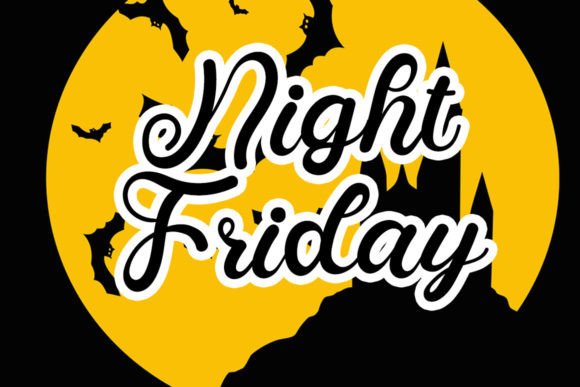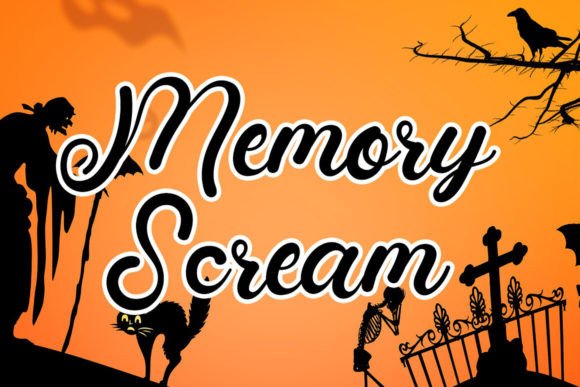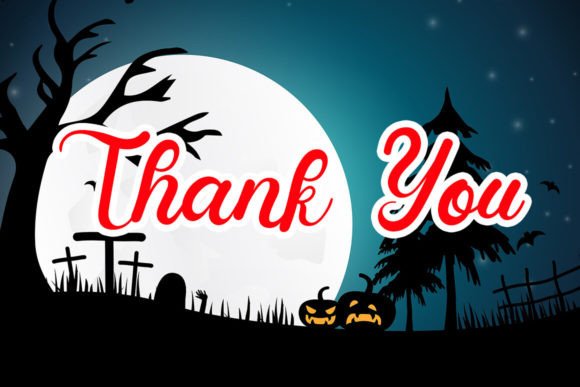
Better Halloween Font: Elevate Your Designs with Elegance and Whimsy
As the spookiest time of the year approaches, designers and crafters are on the lookout for the perfect font to add a touch of magic to their Halloween-themed projects. Look no further than the stunningly elegant Better Halloween font. This beautiful font is designed to bring a sense of freshness and purity to your designs, making it ideal for a diverse array of applications.
The Essence of Better Halloween Font
The Better Halloween font is a masterclass in sophistication. Its clean lines, precise curves, and balanced proportions make it a joy to behold. The font’s elegance is reminiscent of a morning breeze on a crisp autumn day, bringing a sense of refreshment and renewal to your designs. Whether you’re working on a formal or casual project, Better Halloween fluidly adapts to your needs, ensuring that your designs exude a sense of refinement and poise.
Adding a Spark of Joy to Your Designs
One of the standout features of the Better Halloween font is its ability to infuse jovial vibes into your designs. The font’s playful undertones and whimsical flair make it perfect for adding a touch of humor and lightheartedness to your projects. Whether you’re designing invitations, party decorations, or social media graphics, Better Halloween helps you create engaging and entertaining content that captures the essence of the Halloween spirit.
Crafted for Ease of Use and Simplicity
The Better Halloween font is designed with ease of use and simplicity in mind. Its clean and intuitive design makes it easy to read and understand, even at small sizes. This font is perfect for designers and crafters who want to focus on creating stunning visuals without worrying about complicated typography. With Better Halloween, you can effortlessly elevate the aesthetic charm of your business, taking your visual appeal to new heights.
Ideal Applications for Better Halloween Font
The Better Halloween font is versatile and can be used in a wide range of applications, including:
- Halloween-themed party invitations and decorations
- Packaging and labeling
- Digital and print advertising
Why Choose Better Halloween Font?
With so many fonts available, why choose Better Halloween? Here are just a few reasons:
- Unique and distinctive: The Better Halloween font stands out from the crowd, offering a fresh and distinctive take on traditional Halloween typography.
- Elegant and sophisticated: This font exudes refinement and poise, making it perfect for formal and informal designs.
- Easy to use: The Better Halloween font is designed for simplicity and ease of use, making it accessible to designers and crafters of all levels.
- Versatile: This font can be used in a wide range of applications, from digital designs to print materials.
In conclusion, the Better Halloween font is a stunningly elegant and versatile typography solution that’s perfect for designers and crafters looking to add a touch of magic to their Halloween-themed projects. With its freshness, purity, and sophistication, this font is sure to elevate your designs to new heights of visual appeal. So why wait? Download the Better Halloween font today and start creating enchanting designs that capture the essence of the Halloween spirit!